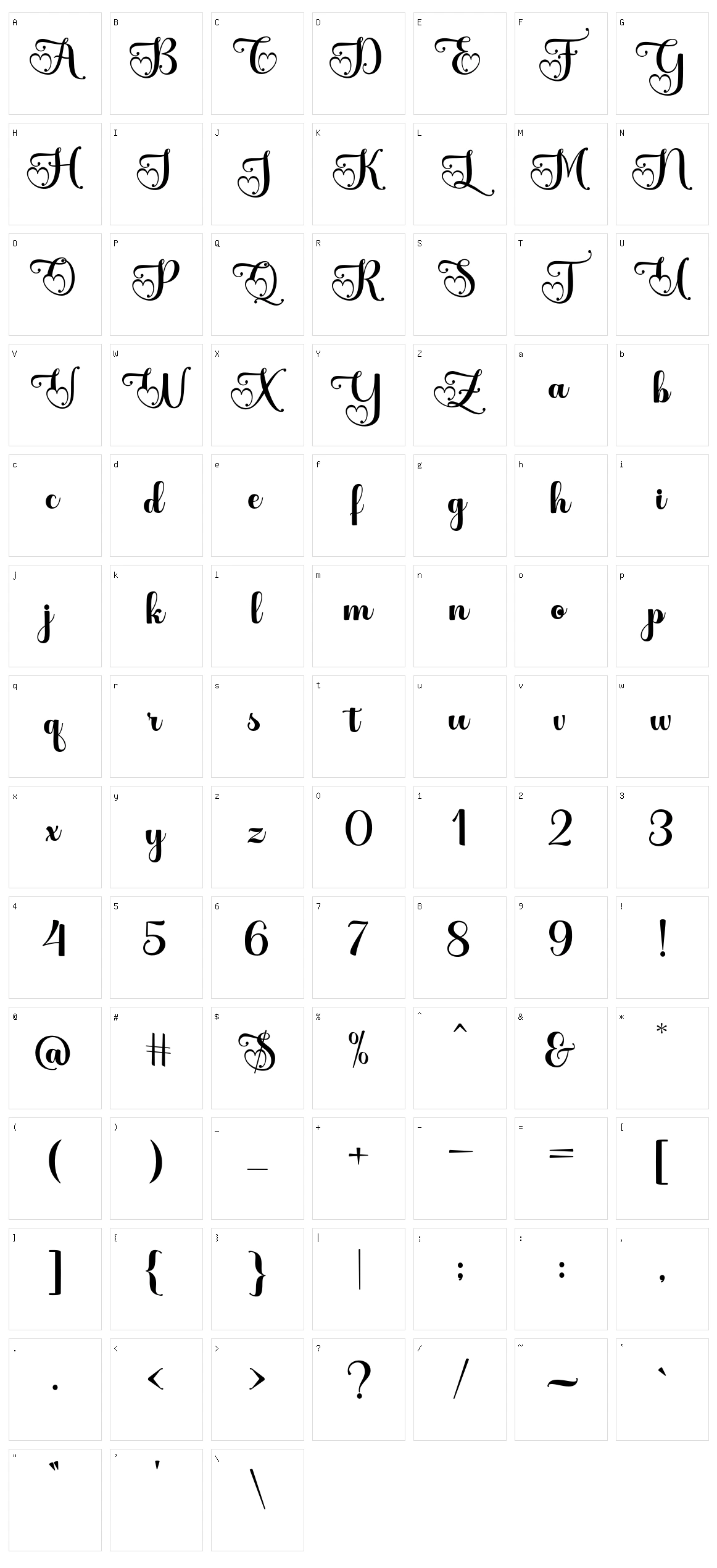
The free font Alista Script is carefully designed by LetterFreshStudio, showcasing a thoughtful balance of creativity and usability and falls under the Valentine font style. When you download the ZIP file, it contains only 76.74 KB of font files, making it lightweight and quick to download. Please review the license details below to understand permitted usage and distribution rights. If license information is not available, we recommend using this font for personal projects only or contacting the author directly for commercial usage permissions.